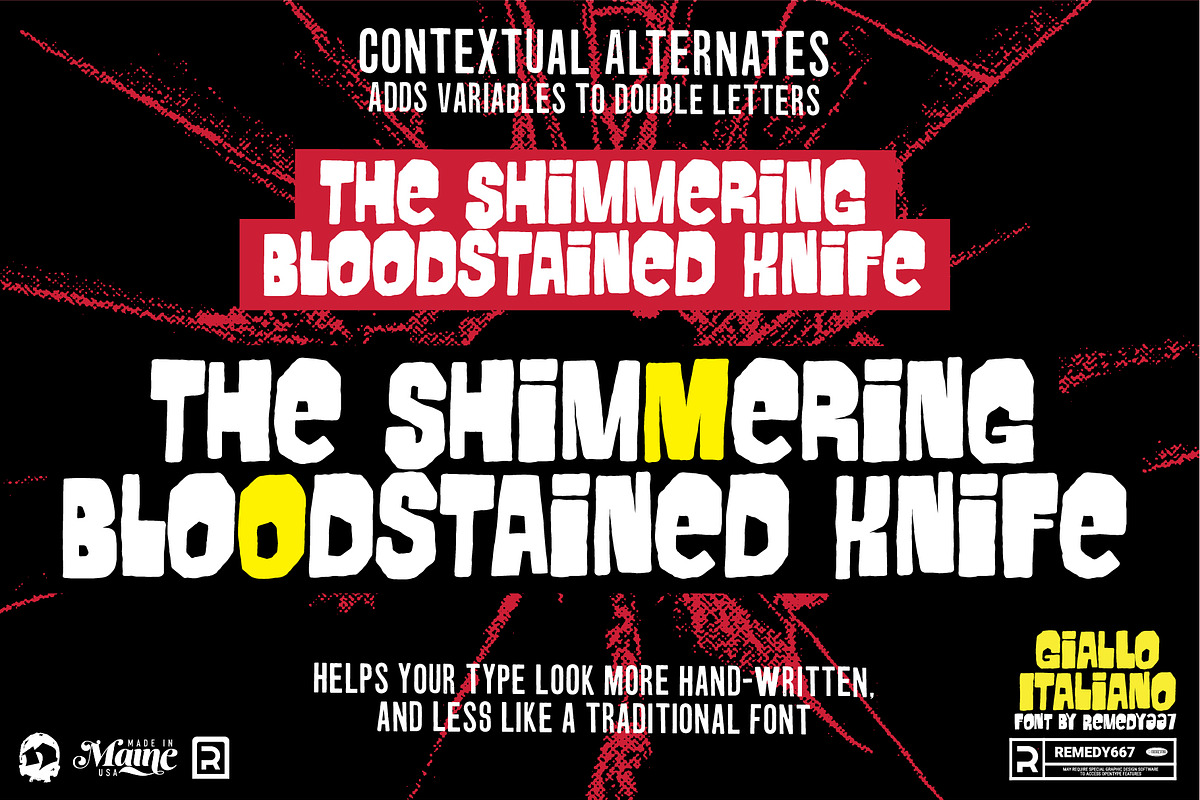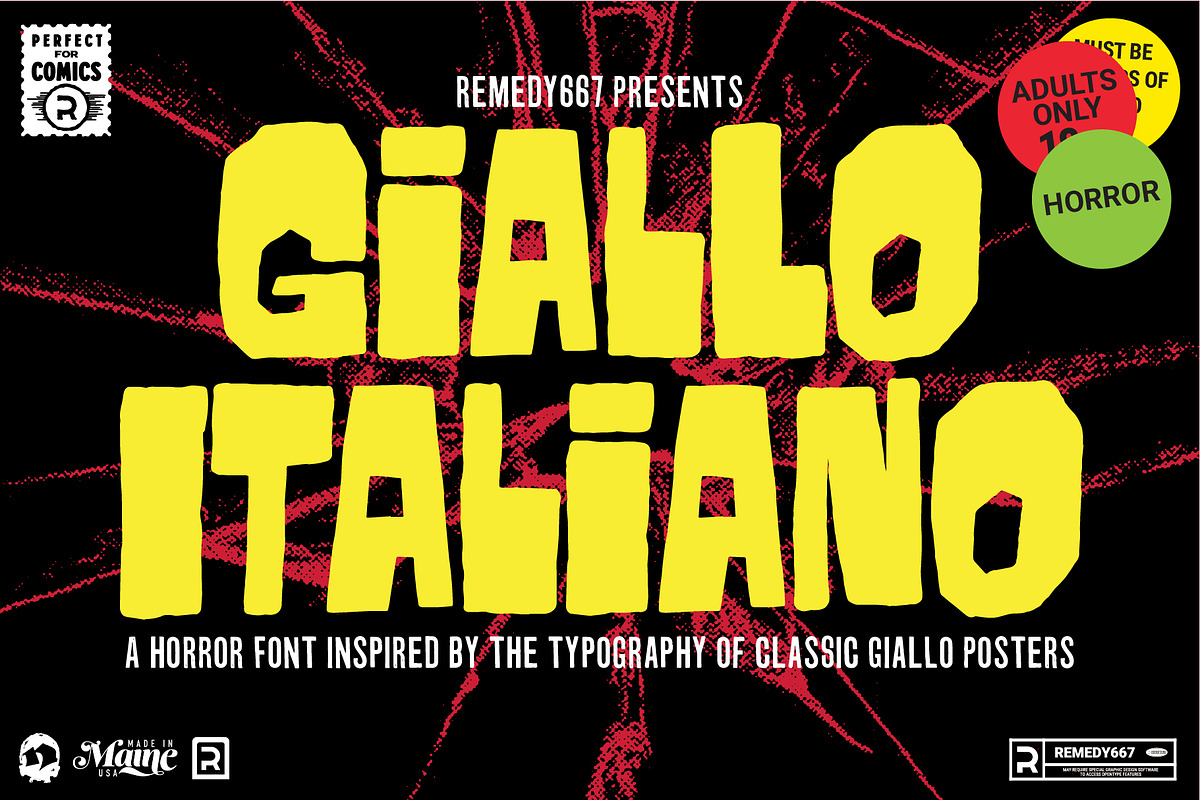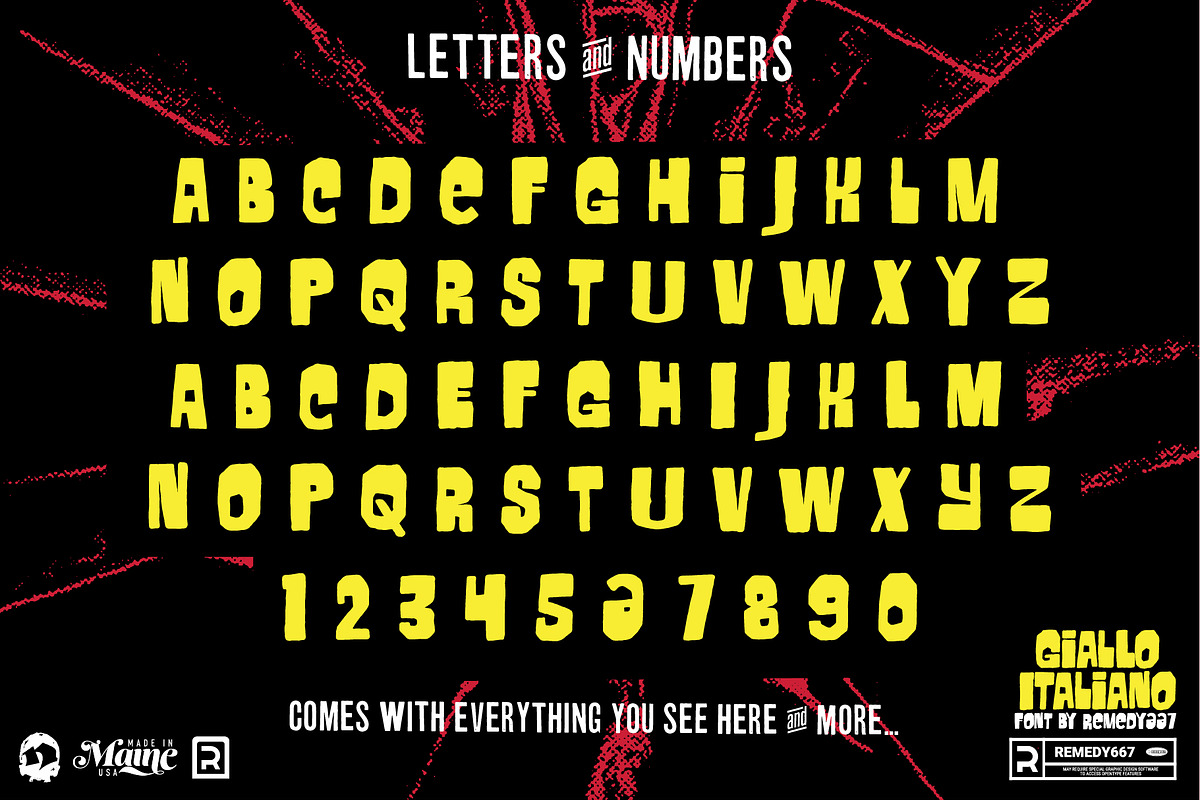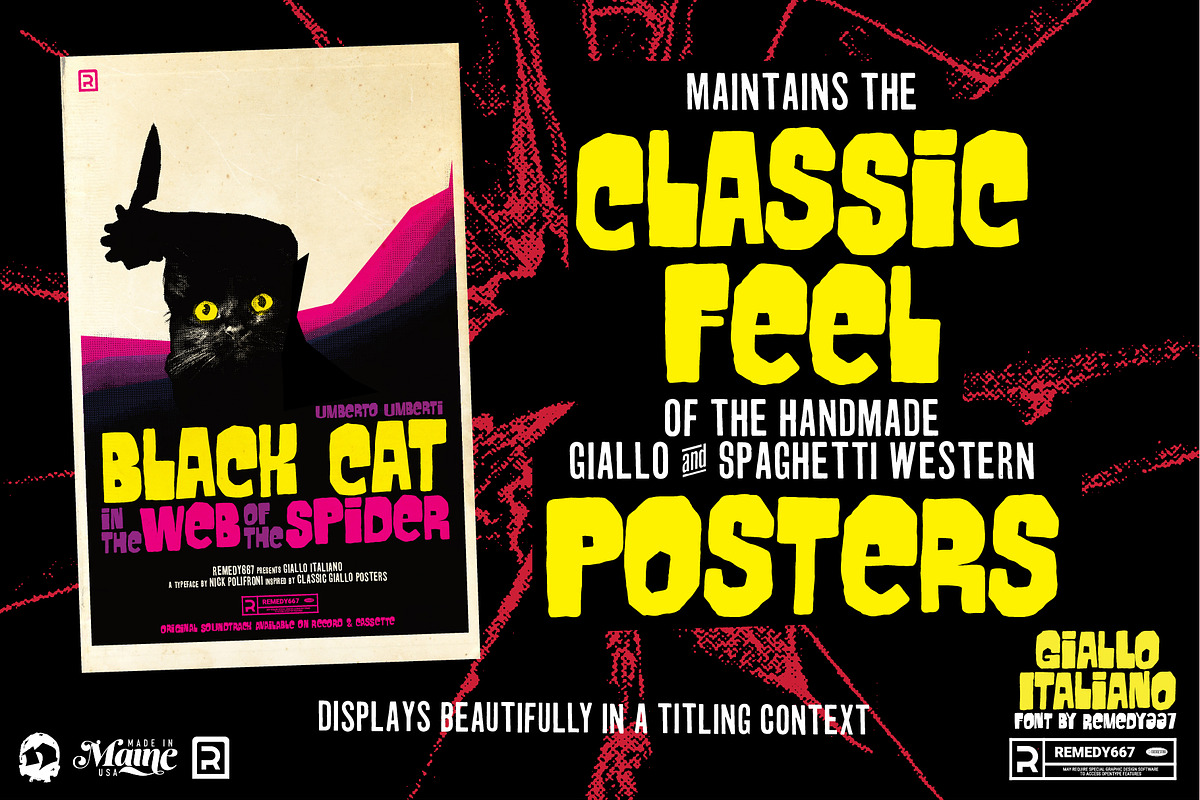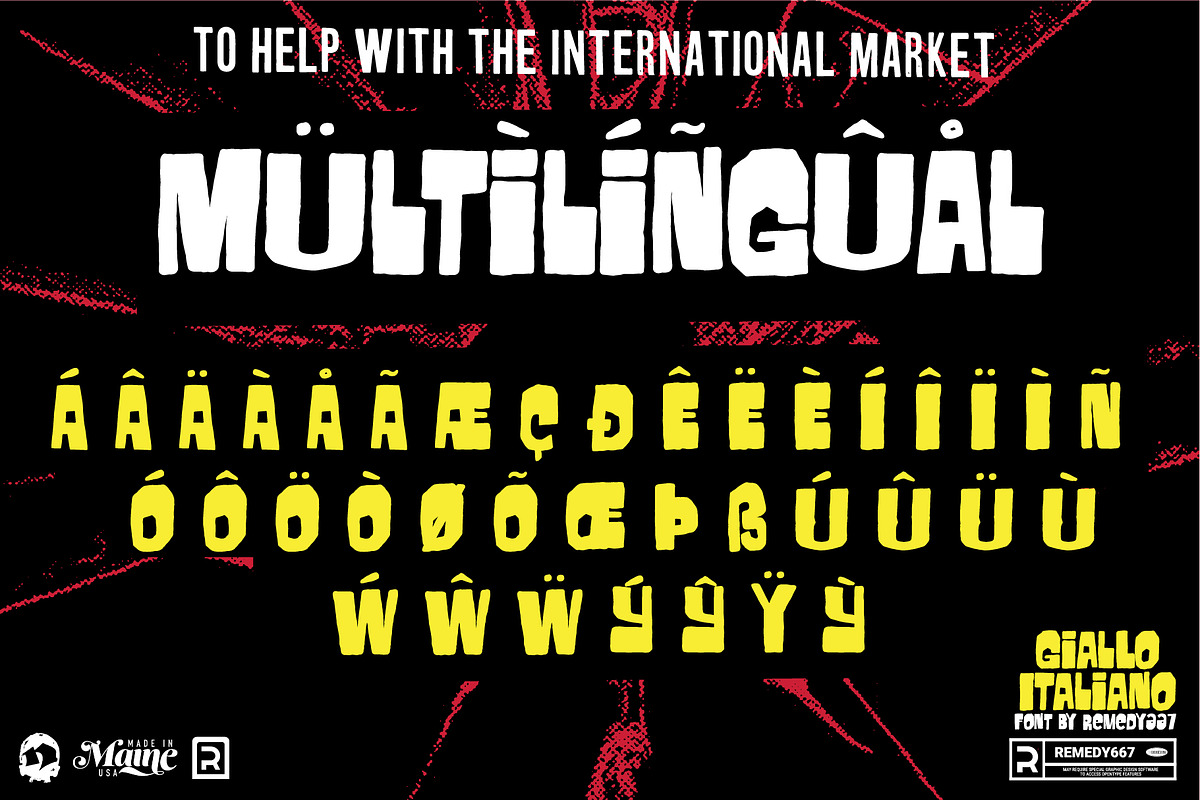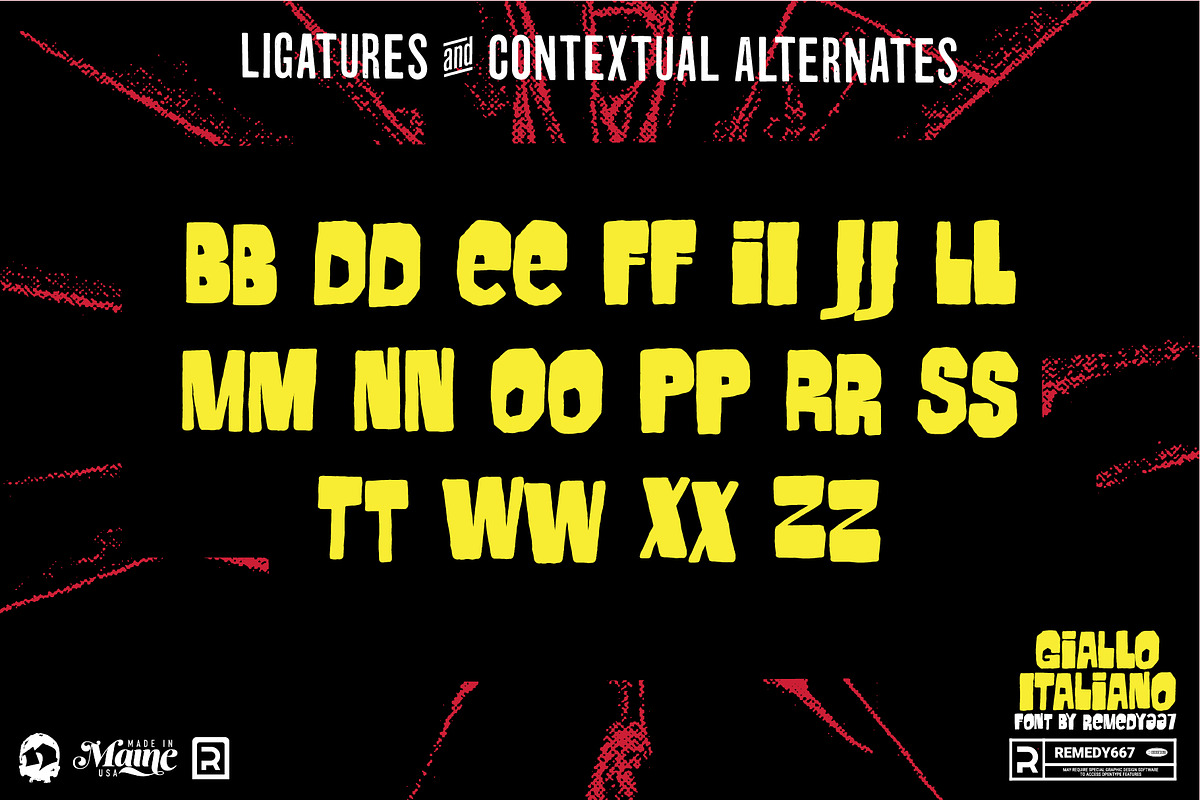
Giallo Italiano - Horror Film Font
Giallo Italiano, a horror font inspired by the typography of classic Giallo posters. Giallo Italiano is hand-drawn to maintain the classic feel of the handmade Giallo and Spaghetti Western posters of the mid-century. A perfect display face to bring that classic look to your projects.
Giallo Italiano features contextual alternates to add variables that will help eliminate duplicate letters, so your copy will look more hand-made, and less like a traditional font. Giallo Italiano also features multilingual support when you’re ready to take your project international.
Perfect for Logos, T-Shirts, Flyers & Posters, Movies, and more… put on your black gloves, and grab your copy of Giallo Italiano today.